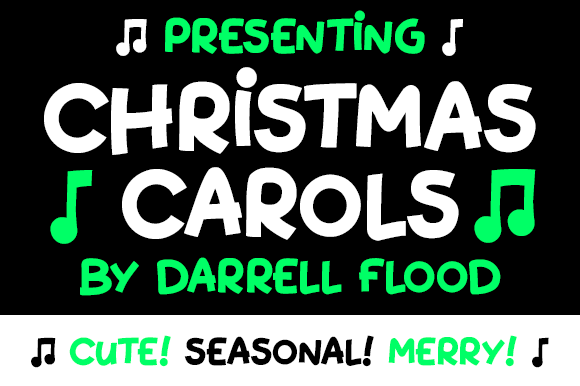
Deck the Halls with Typography: Introducing Christmas Carols Font
As the holiday season approaches, designers often find themselves scrambling for the perfect font to capture the festive spirit. It was during one such creative moment, surrounded by twinkling lights and steaming cups of hot cocoa, that I stumbled upon the perfect solution – Christmas Carols Font. This energetic, bold, and fun display font in a loose cartoon style is the perfect accompaniment to any holiday-themed project.
Whether you’re designing Christmas cards, comic strips, or any kind of family-friendly presentation, Christmas Carols Font is sure to bring a smile to your audience’s faces. Its playful and whimsical nature makes it a valuable asset for designers looking to add a touch of magic to their work. By incorporating this font into your projects, you’ll be able to evoke the warmth and joy of the holiday season in a way that’s both authentic and engaging.
Christmas Carols Font Key Features
- Font Family: Christmas Carols – a unique, hand-drawn font designed specifically for festive and holiday-themed projects.
- Size: 1,000 glyphs – providing an extensive character set, including letters, numbers, punctuation, and special characters.
- Unique Characteristics: Includes ornaments, decorations, and other festive elements that can be used to create a cohesive and visually appealing design.
Designer Review: Christmas Carols Font
As a designer, I was excited to dive into the Christmas Carols Font, hoping it would bring a festive touch to my holiday projects. Here’s my honest review:
- The font’s nostalgic charm is undeniable. It captures the essence of traditional Christmas carols, making it perfect for holiday-themed projects.
- The font’s bold and playful nature makes it suitable for headings and titles, adding a pop of festive flair to your designs.
- The font’s versatility allows it to be used in various design contexts, from greeting cards to social media graphics.
- The font’s limited character set may cause issues when working with complex text layouts or lengthy body text.
- The font’s bold nature can make it difficult to read in certain contexts, such as small text sizes or low-resolution displays.
Overall, I’d say the Christmas Carols Font is a great addition to any designer’s holiday arsenal. While it may have some limitations, its nostalgic charm and versatility make it a worthwhile investment for any project that requires a festive touch.
The Christmas Carols Font is perfect for creating festive and fun designs for:
- Christmas cards and invitations
- Decorative posters and banners
- Seasonal social media graphics
- Wedding and party invitations
For the most out of this font, use it in combination with other festive elements like holly, snowflakes, and Christmas trees.